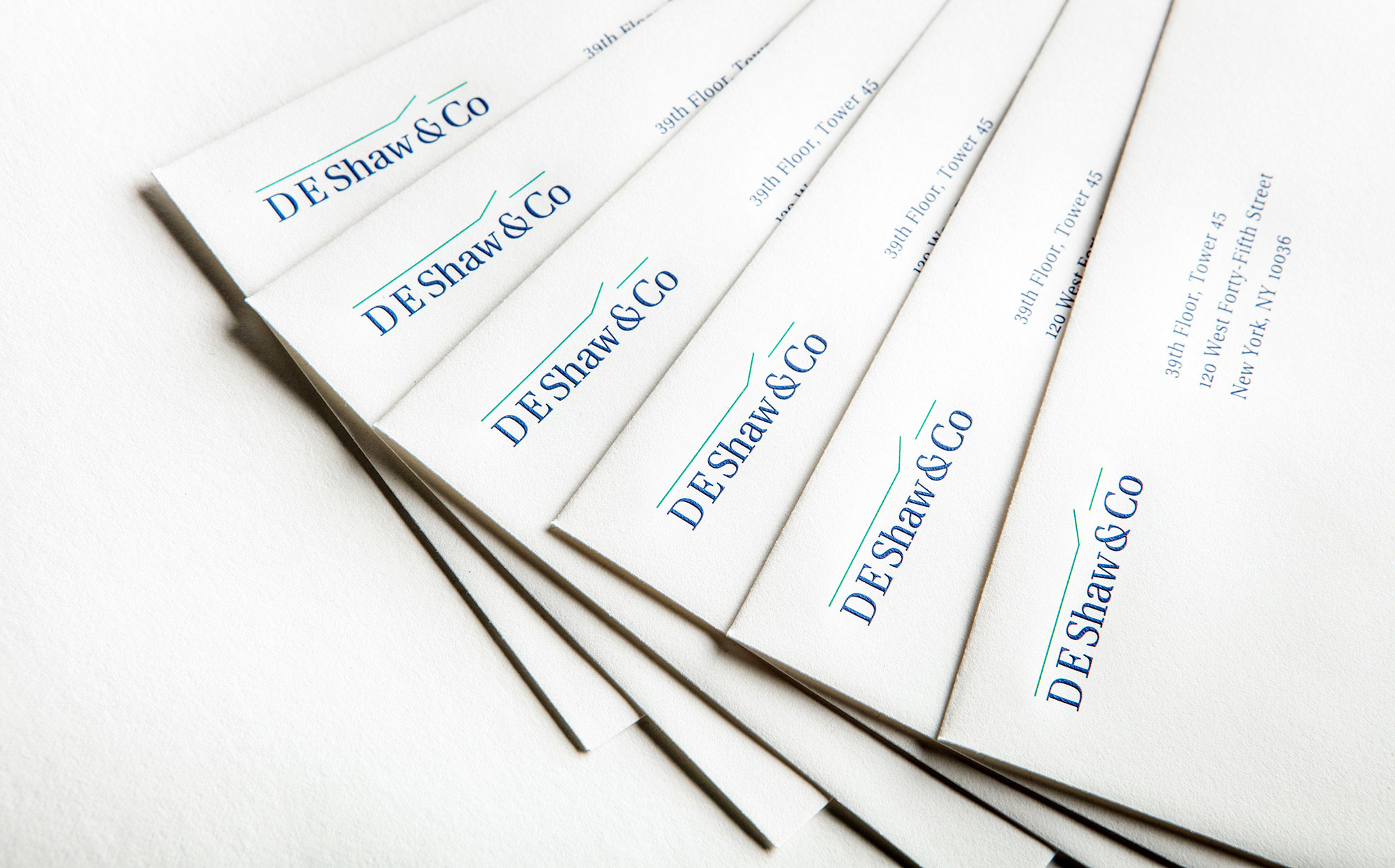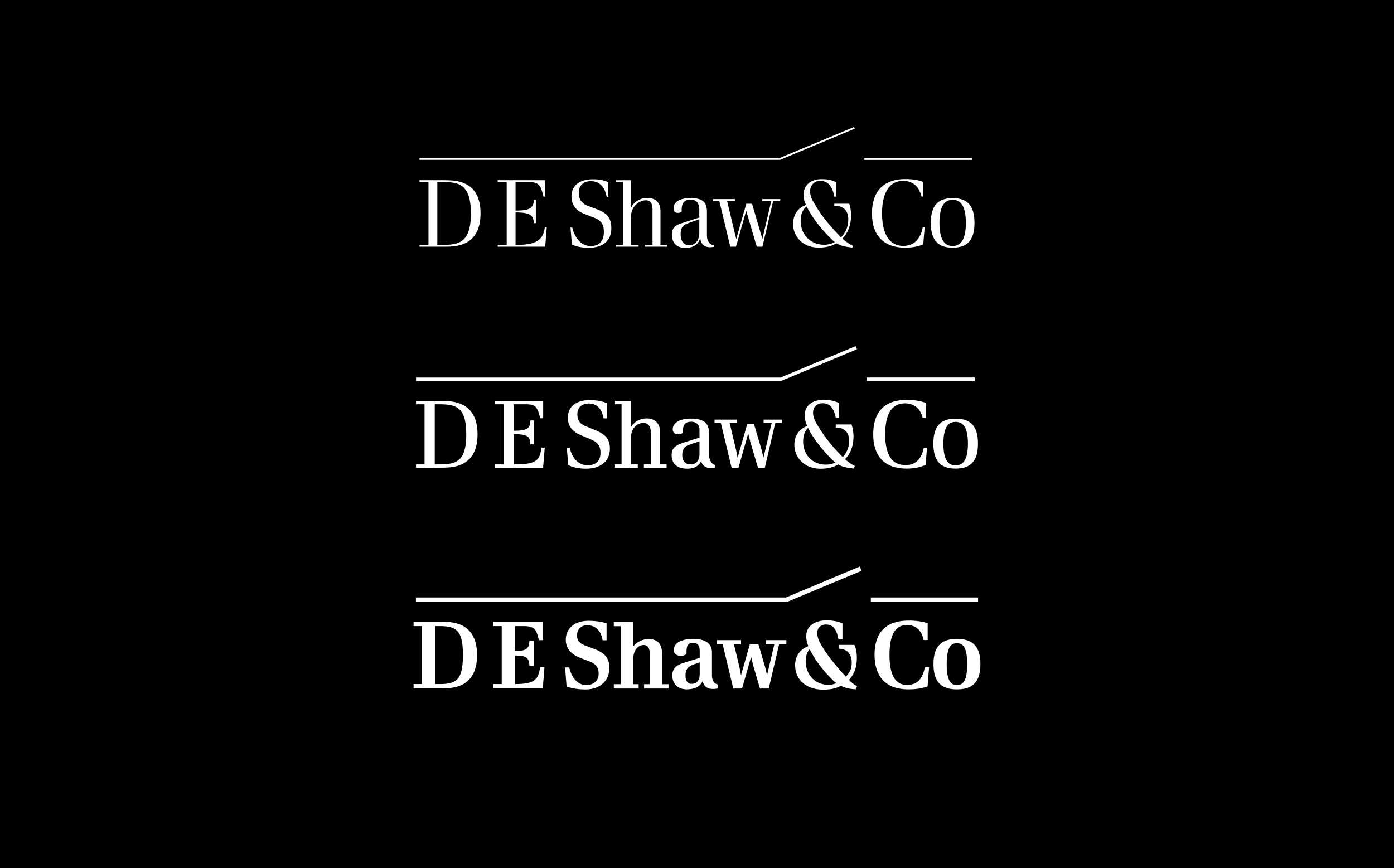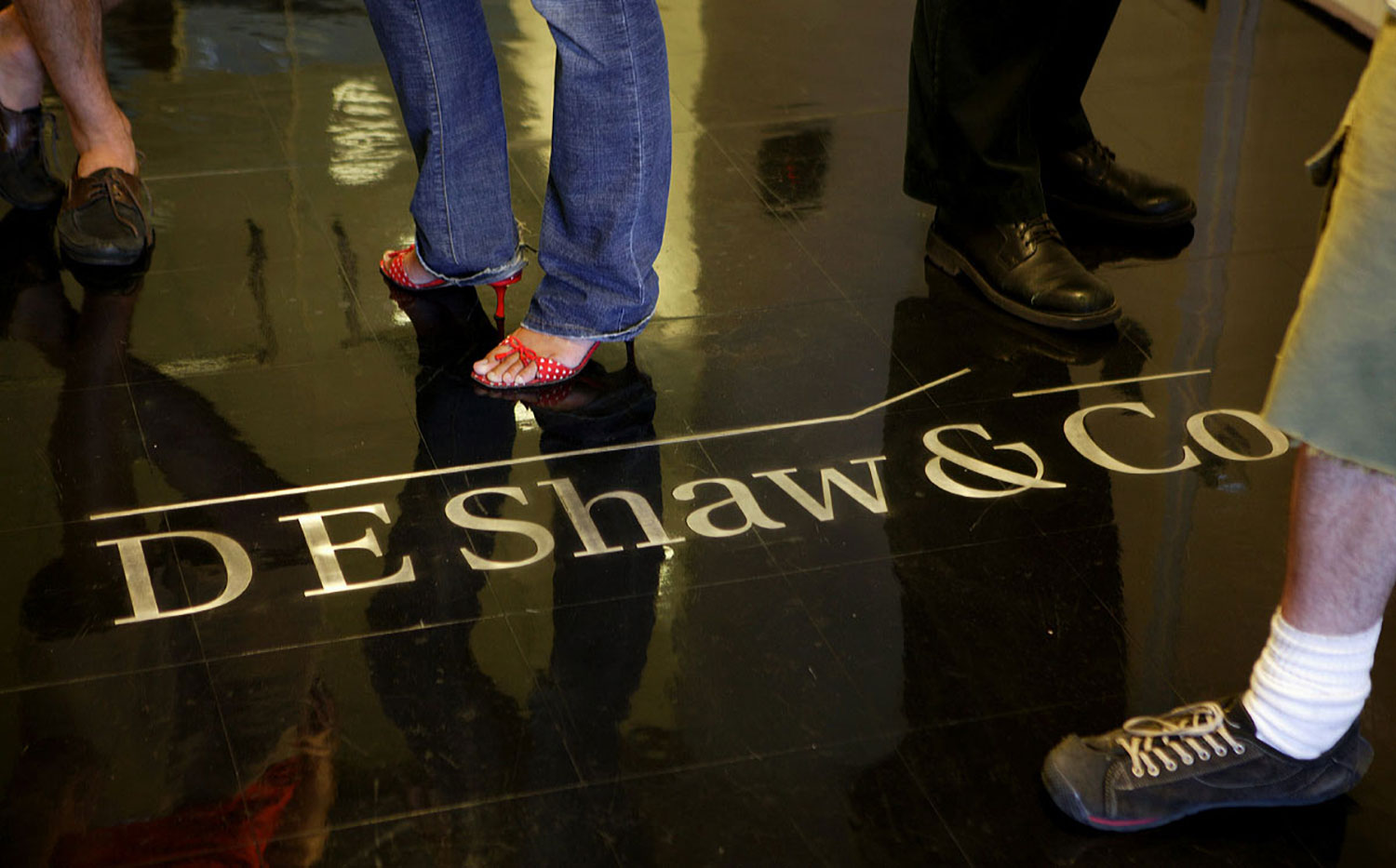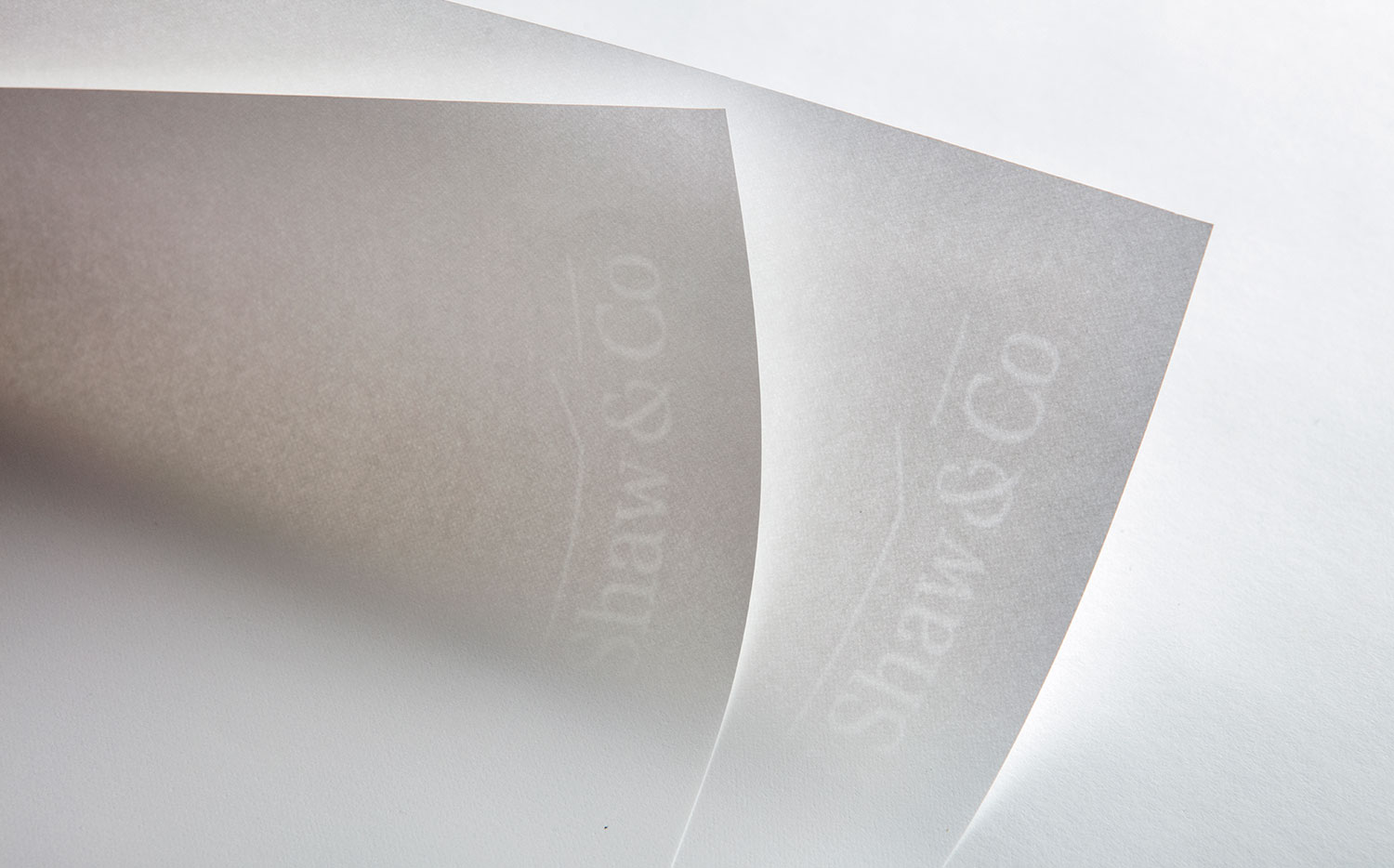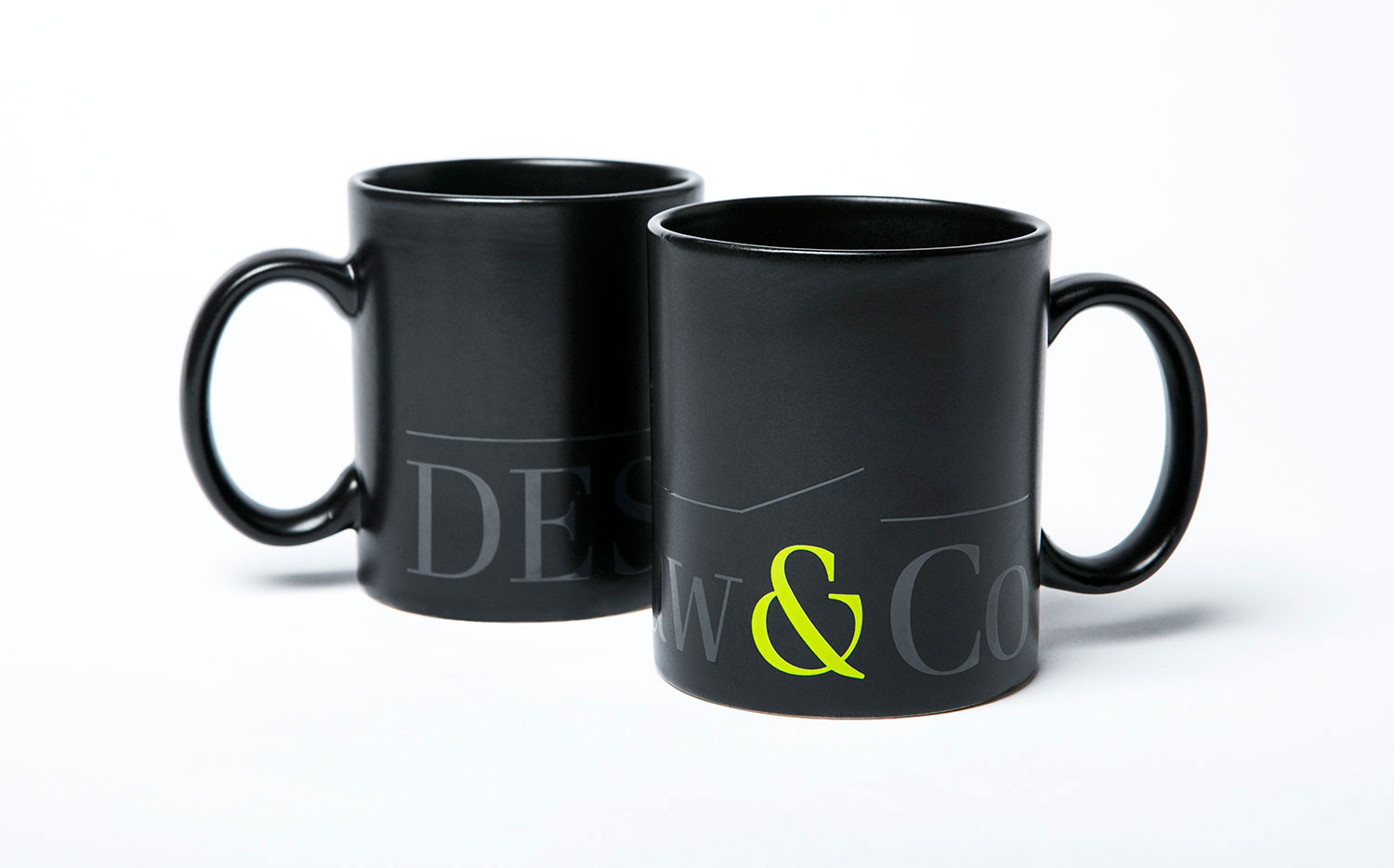
D.E. Shaw
Founded in 1988, D. E. Shaw was one of the world’s first algorithmic trading firms, and today manages over $60 billion in assets. Signal helped shape its comms strategy from the beginning, starting with a wordmark based on the electrical engineer’s symbol for a binary switch, the basic building block of the computer chip.
A set of three logos were drawn in weights varying from light to bold to ensure an appropriate degree of emphasis for all applications. The letterhead got a custom watermark. To keep the Steven Holl–designed lobby’s walls pristine, the logotype was inlaid into the floor in steel. Branding, print, and signage by Signal.